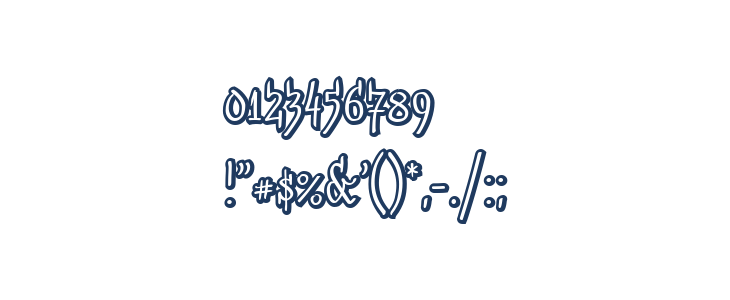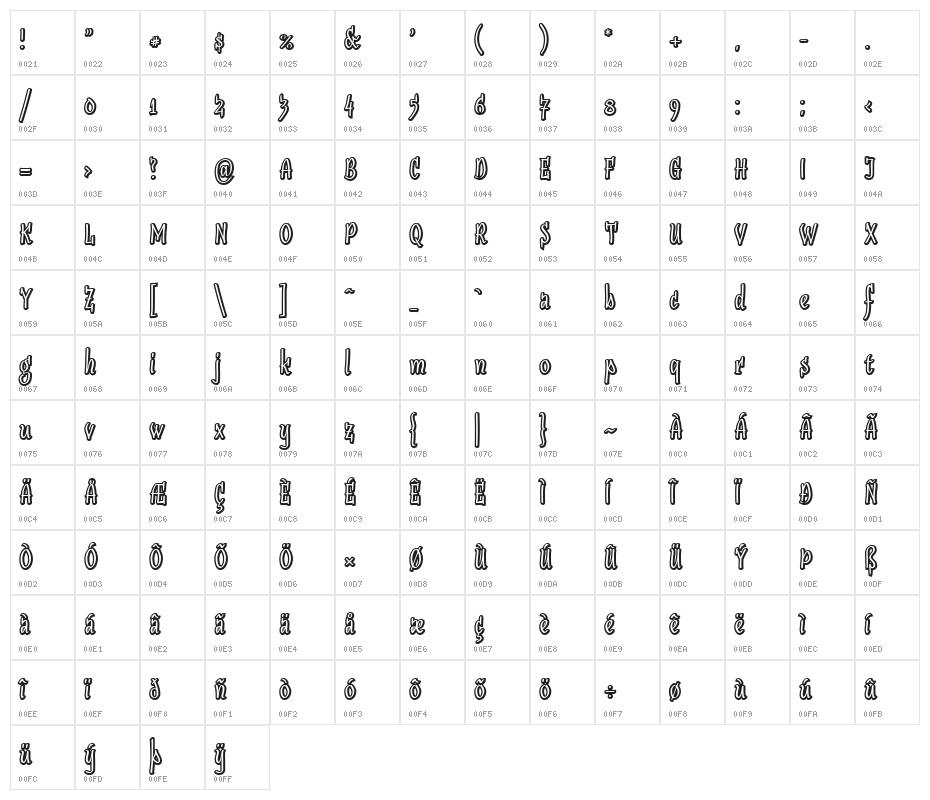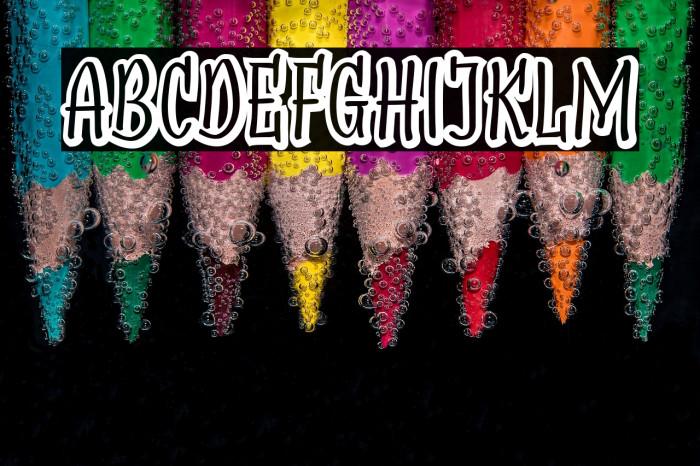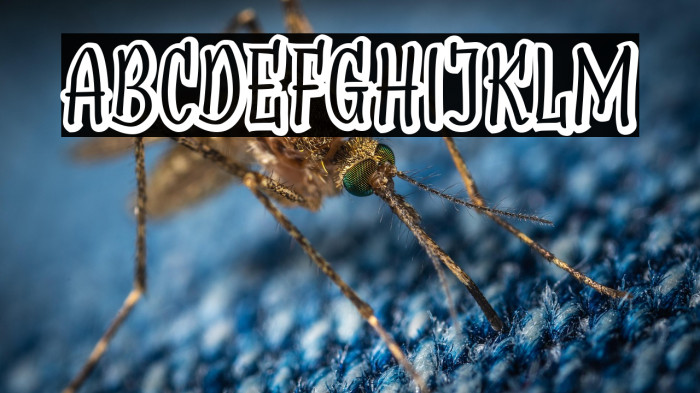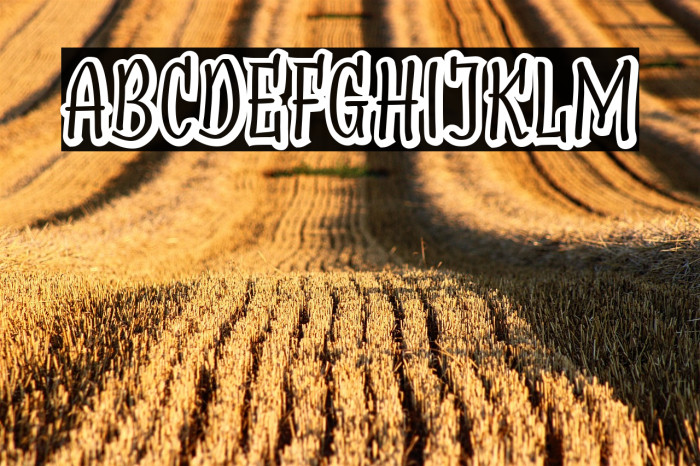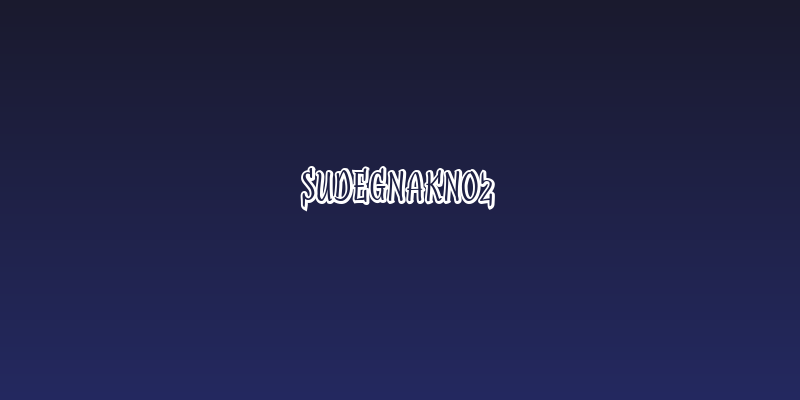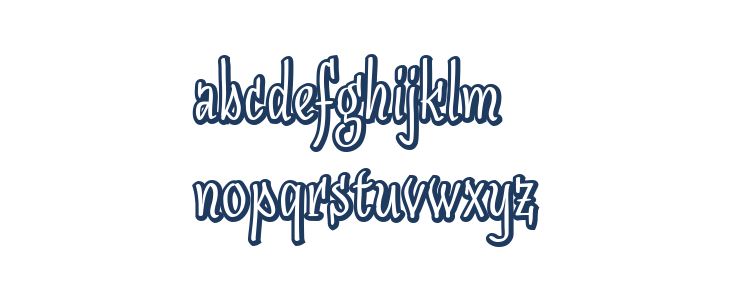
SudegnakNo2 Font
SudegnakNo2 Description
This font features a bold, playful style with a distinct outline that gives it a three-dimensional effect. The uppercase and lowercase letters are well-balanced, with a slight slant that adds a dynamic feel. The characters have a consistent stroke width, contributing to a cohesive appearance. The numbers and special characters maintain the same playful and bold characteristics, making the font versatile for various uses. Its unique style is eye-catching and suitable for projects that require a fun and engaging typeface.
| Overall Style | Playful, Fun, Engaging |
| Use Case | Headlines, Posters, Branding |
| Proposed Projects | Ideal for children's books, comic strips, playful branding, and eye-catching posters. |